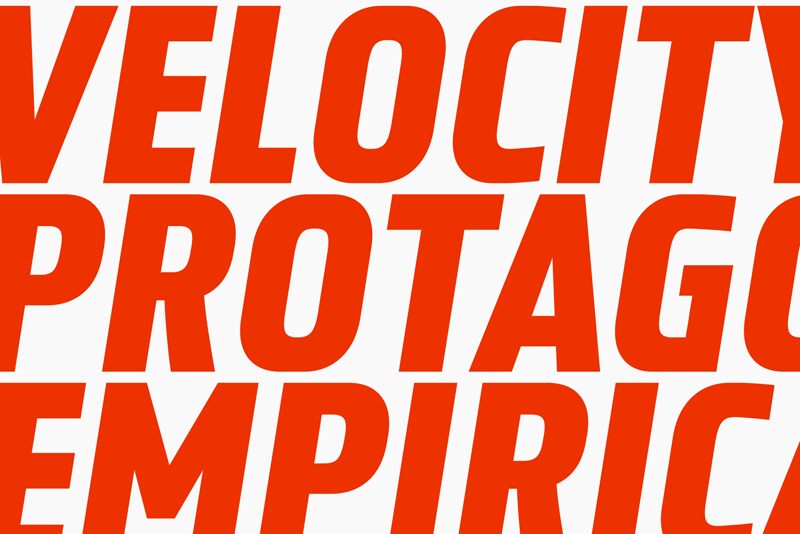
Meet Malberg Heavy, a powerful and stunning font designed by Eko Bimantara. With its ultra-bold weight and sleek sans serif style, this font commands attention and exudes confidence.
Its strong presence makes it ideal for fashion magazines, luxury brand logos, and impactful headlines. Whether you're working on a high-end editorial layout or designing a captivating website, Malberg Heavy is the perfect choice to make a bold statement.
Elevate your projects with this remarkable typeface that effortlessly combines strength and elegance.